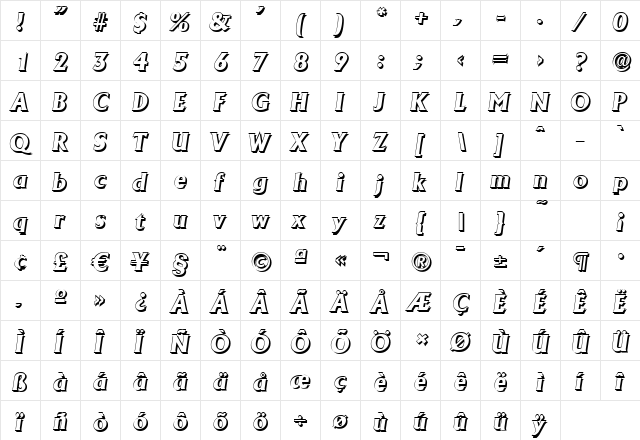
JacobBeckerShadow-ExtraBold Italic Font Preview
Design Context for JacobBeckerShadow-ExtraBold Typeface
JacobBeckerShadow-ExtraBold brings ornamental detail and strong personality to headlines and identities, where visual impact matters more than quiet functionality. The slanted form adds forward momentum and visual energy. The heavy weight commands attention and anchors typographic hierarchies.
Font Pairing: Pair with a clean neutral sans-serif for body copy to let JacobBeckerShadow-ExtraBold's character lead without overwhelming the composition.
Pro Tip: Treat JacobBeckerShadow-ExtraBold as the centrepiece of your typographic hierarchy. One strong heading set in a decorative face can carry an entire layout.